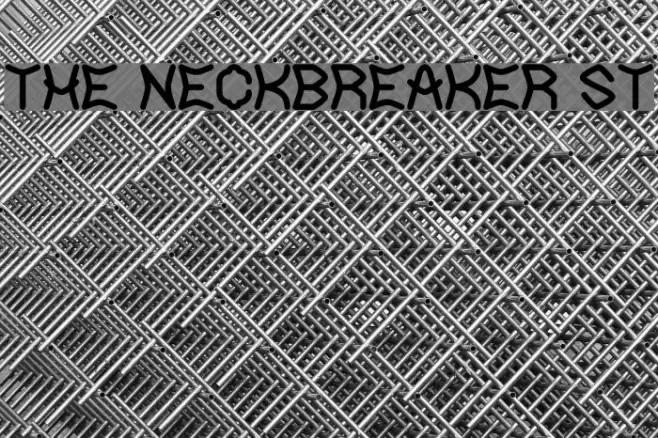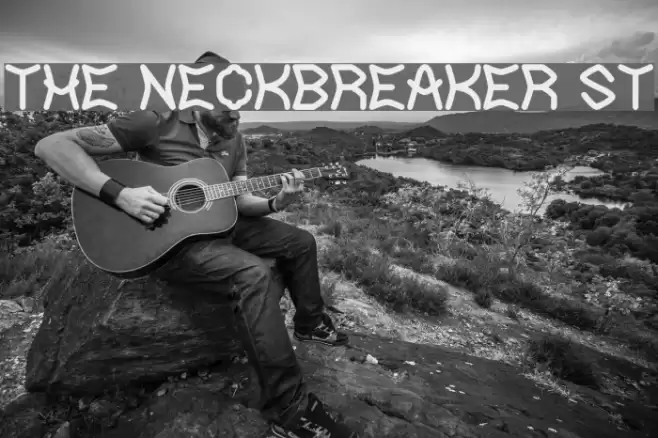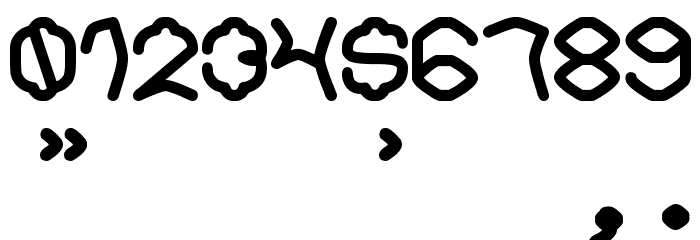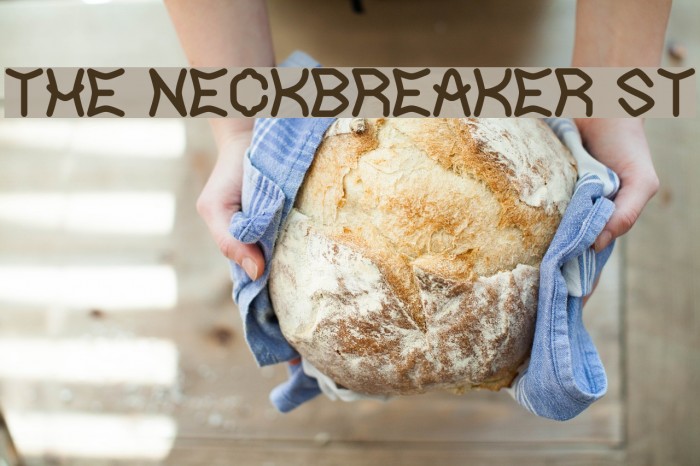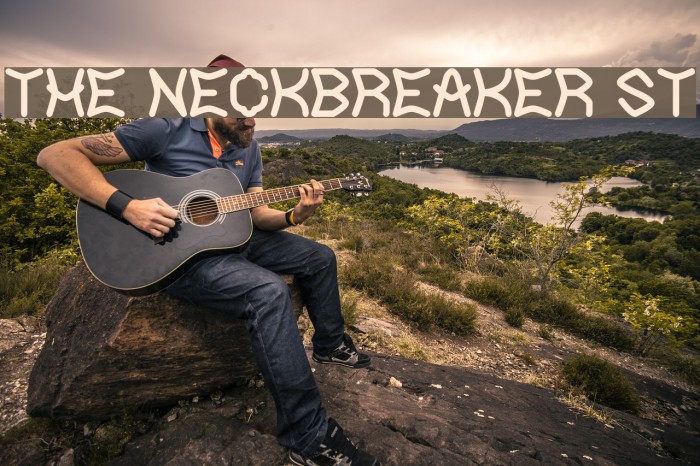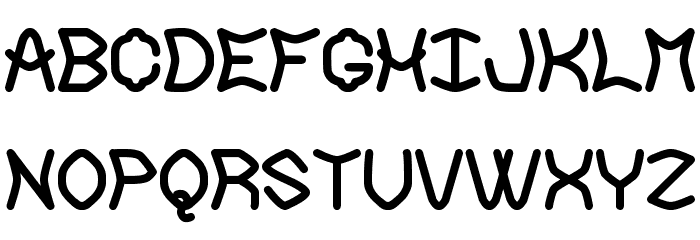
The Neckbreaker St Font
The Neckbreaker St Description
This font features a bold and playful style with a unique, slightly distorted appearance. The characters have a thick, consistent stroke that gives them a strong presence. The design incorporates rounded edges and irregular shapes, creating a whimsical and informal look. The uppercase and lowercase letters maintain a consistent style, while the numbers and special characters complement the overall aesthetic. This font is ideal for projects that require a fun and eye-catching design.
A bold, playful font with rounded edges and a whimsical style from Uncategorized fonts.
- Proposed Projects: Perfect for children's books, playful branding, posters, and creative designs.
- Overall Style: Playful